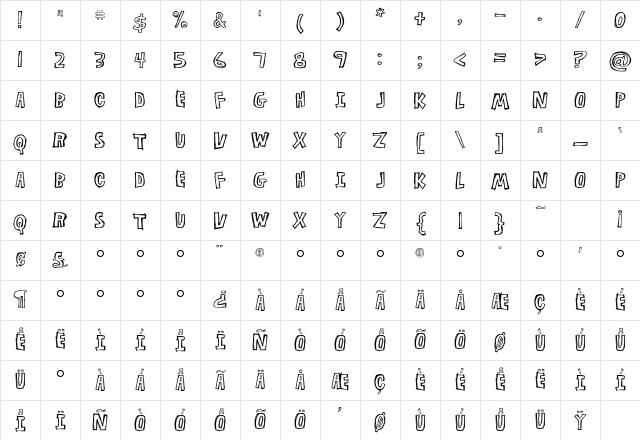
Flyerfonts Corrosion Free Font
Flyerfonts Corrosion
Style: Corrosion
Design Context for Flyerfonts
Flyerfonts is a composed and adaptable typeface that performs quietly and consistently across a wide range of design contexts.